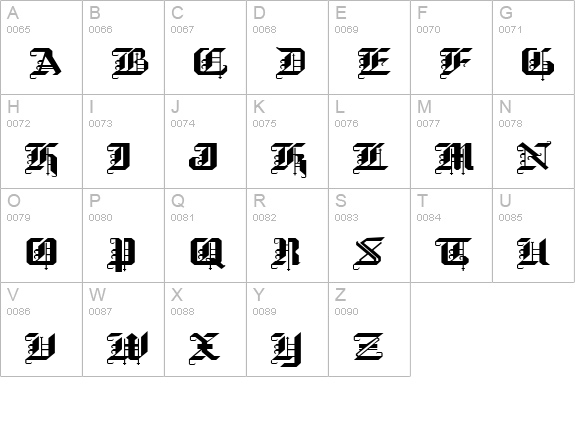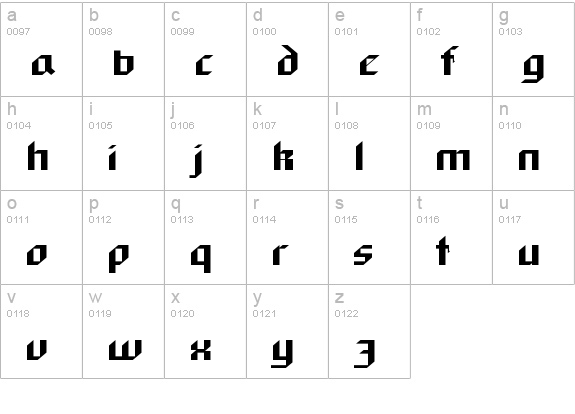
GothicExtended Normal is the standard, neutral variant in the GothicExtended typeface family \xE2\x80\x94 well suited to general body text, paragraphs, and standard typographic work.
GothicExtended Normal font is a captivating and versatile typeface that exudes elegance and sophistication. With its striking elongated letterforms and intricate details, this font adds a touch of mystery and drama to any design project. The GothicExtended Normal font is perfect for creating eye-catching headlines, logos, and branding materials that demand attention. Best of all, this stunning font is available for free download at FontsMarket.com! Whether you're a designer looking to add a unique flair to your creations or a business owner in need of a standout font for your branding, GothicExtended Normal font is the perfect choice. Download it today and unleash your creativity with this exceptional typeface.